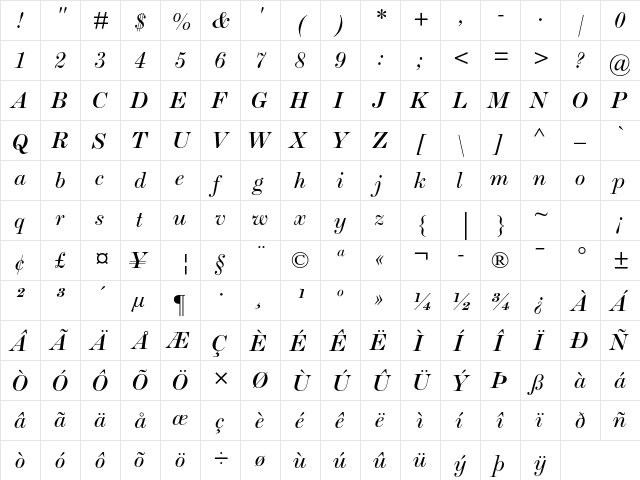
Scotch Roman MT Std Italic
Design Context for Scotch Roman MT Std Typeface
Scotch Roman MT Std offers clean, dependable letterforms without strong stylistic allegiance, making it a practical choice for designers who need flexibility. Its italic angle brings a sense of urgency and motion to the letterforms.
Pro Tip: Use Scotch Roman MT Std for emphasis, pull quotes, and subheadings where its slanted energy can add rhythm to the layout.